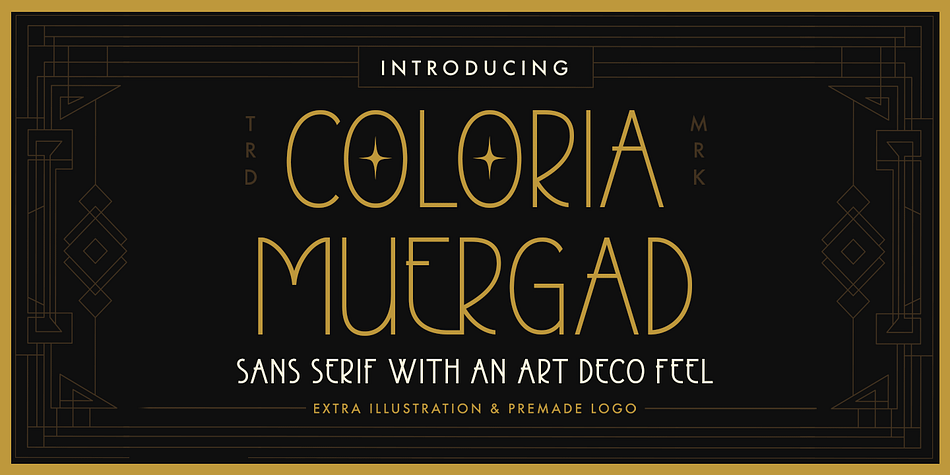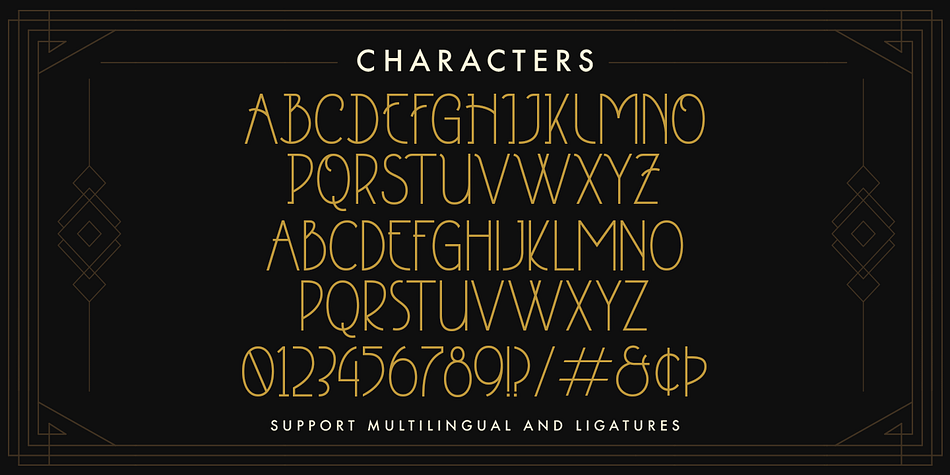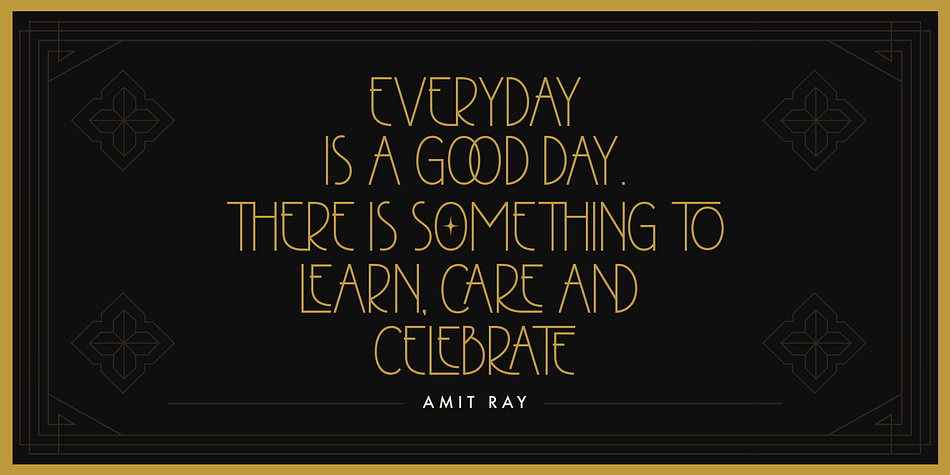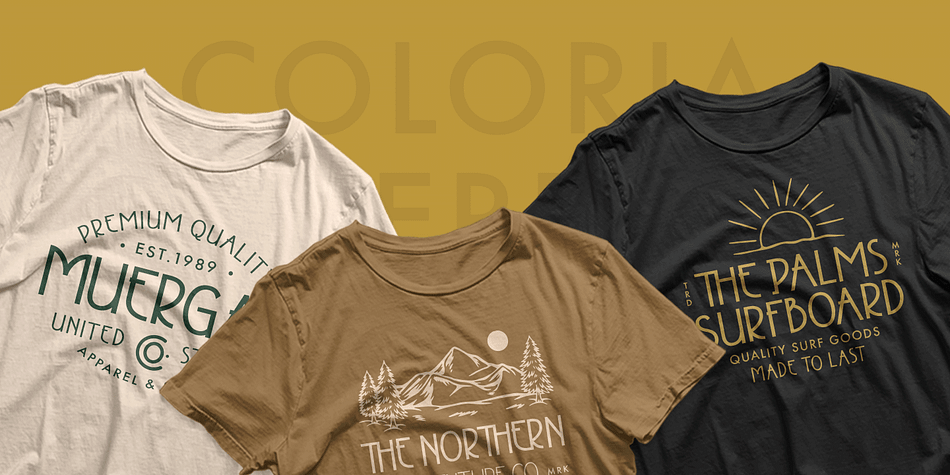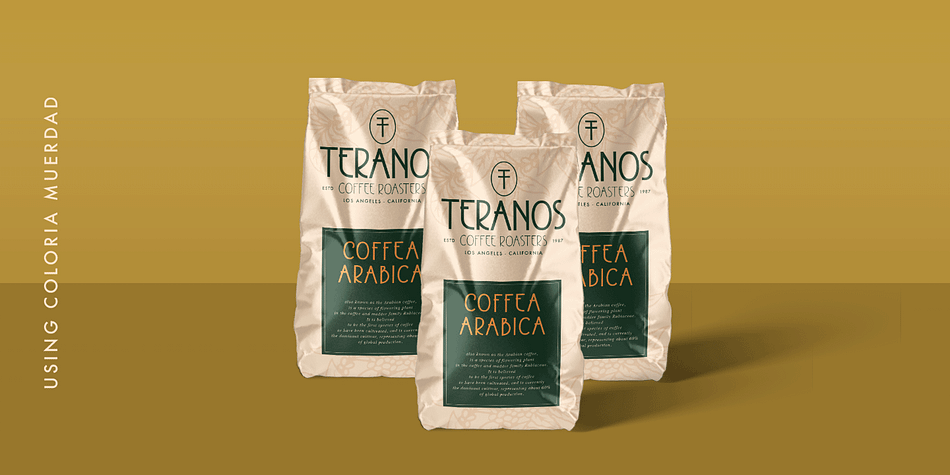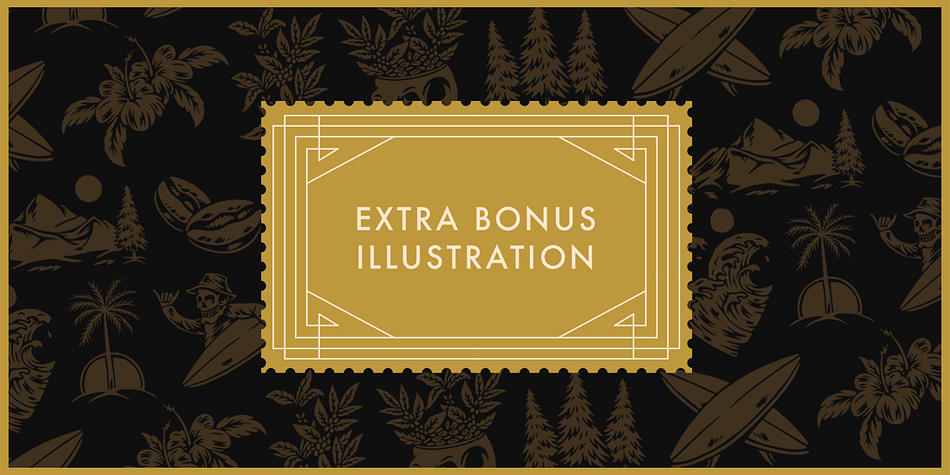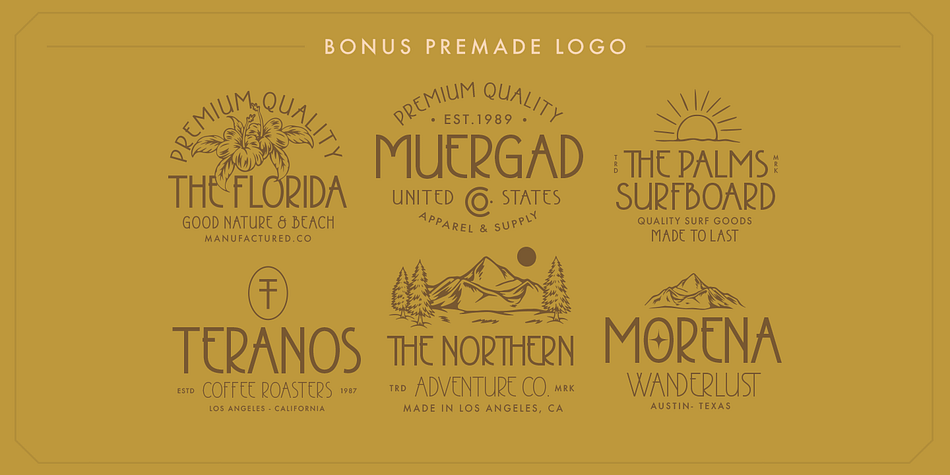
Designed by Hendry Juanda, Coloria Muergad is an art deco font family. This typeface has two styles and was published by Letterhend Studio.
Coloria Muergad is a typeface which is inspired by art deco style. Very suitable for for headline, logotype, apparel, invitation, branding, packaging, advertising etc with old school / vintage as well as modern theme. It comes with few bonus illustrations.
- uppercase and lowercase
- alternates and ligatures